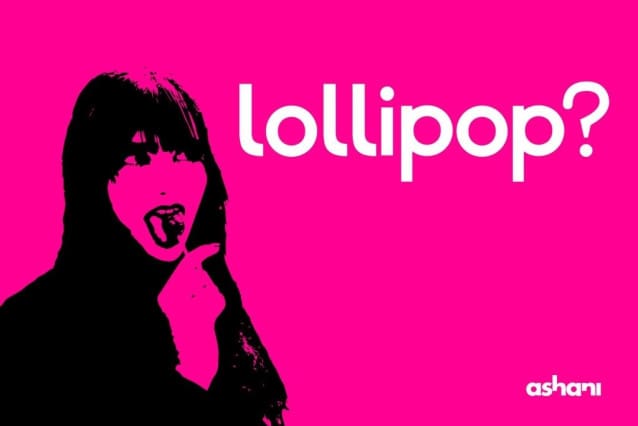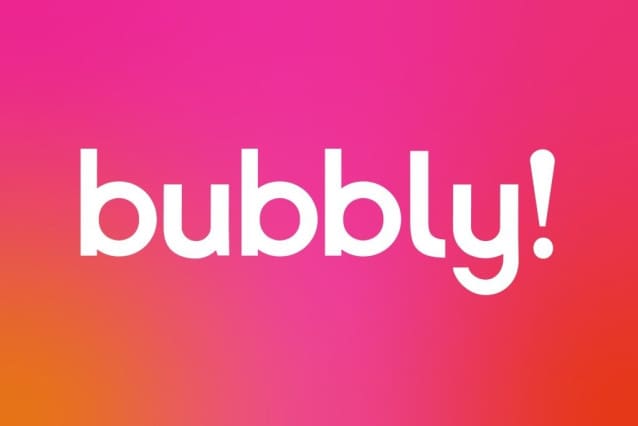
Allen Sans Font
Allen Sans Font is my first original typeface inspired by the very illustrious sans-serif forerunners such as Helvetica, Futura, Avant Garde Gothic and Gill Sans.
AllenSans was released on the 13th of June 2024; developed in the span of two weeks as part of an endeavoured college project.